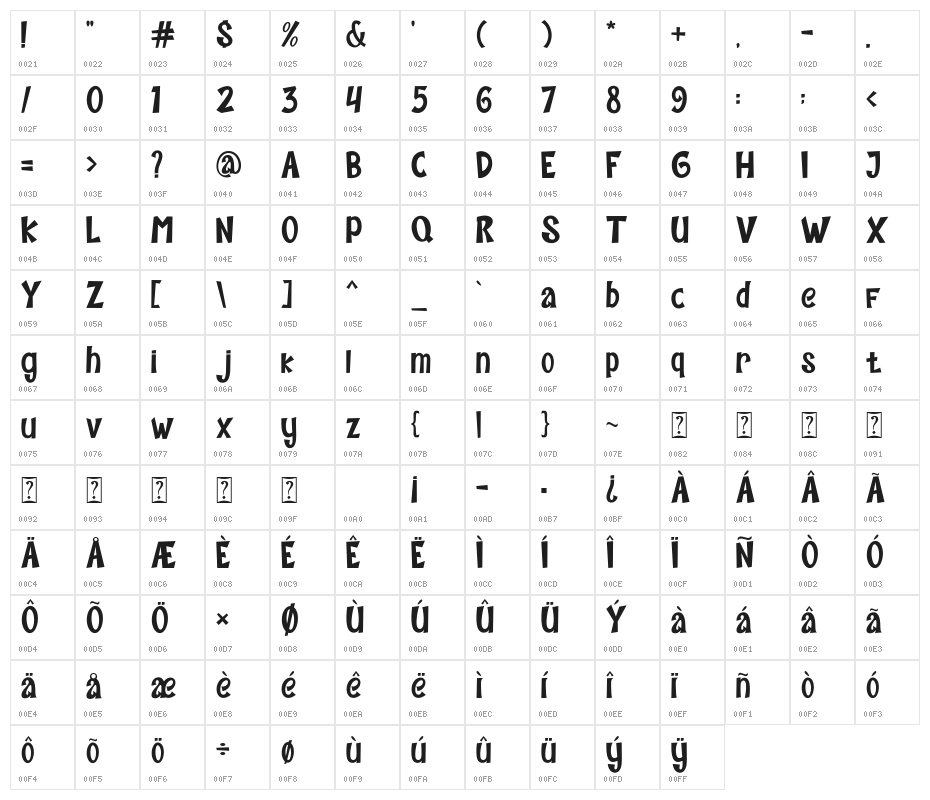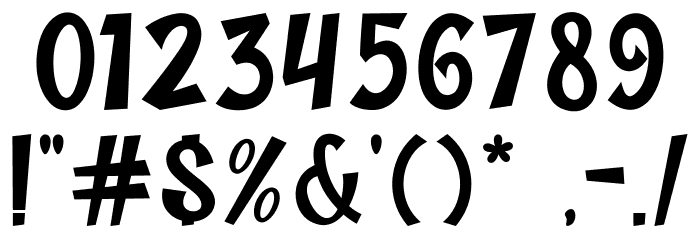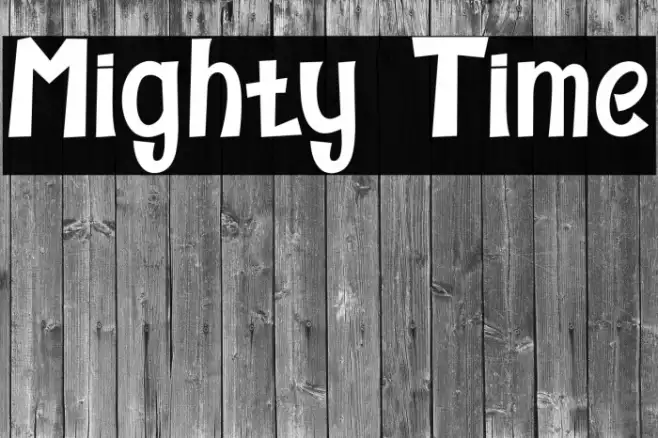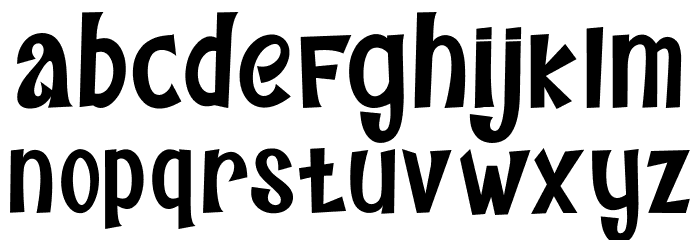
Mighty Time Font
Mighty Time Description
This font features a playful and bold design, characterized by its irregular and dynamic letterforms. The uppercase and lowercase letters exhibit a whimsical style with varying stroke widths, creating a lively and energetic appearance. The numbers and special characters maintain this playful aesthetic, making the font suitable for creative and informal applications. The overall design is eye-catching, with a sense of movement and personality that stands out in any context.
| Overall Style | Playful, Energetic, Whimsical |
| Use Case | Headlines, Posters, Branding |
| Proposed Projects | Ideal for children's books, playful branding, posters, and creative projects that require a fun and energetic typeface. |